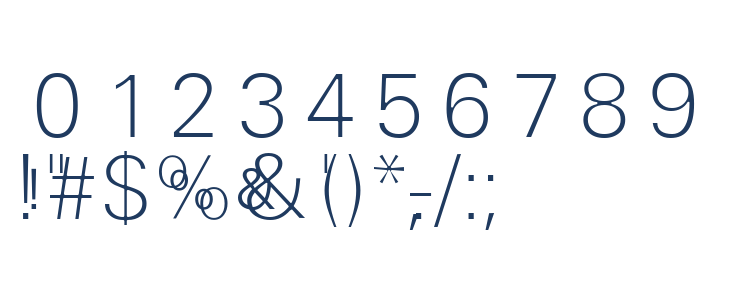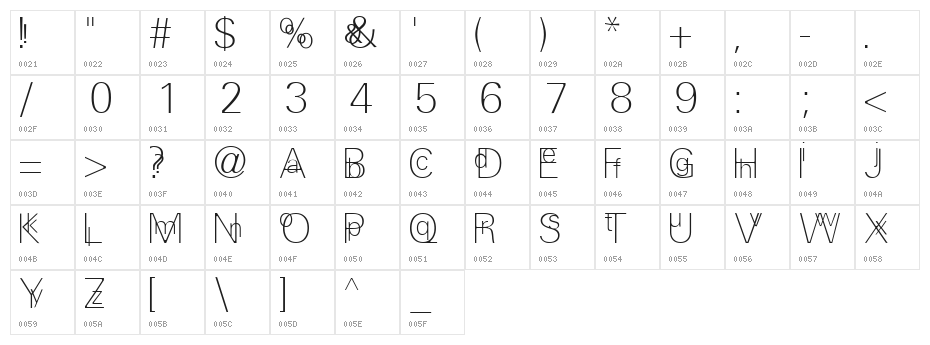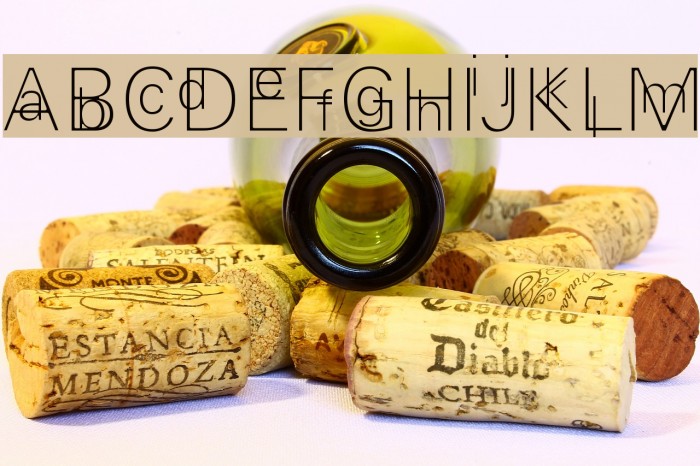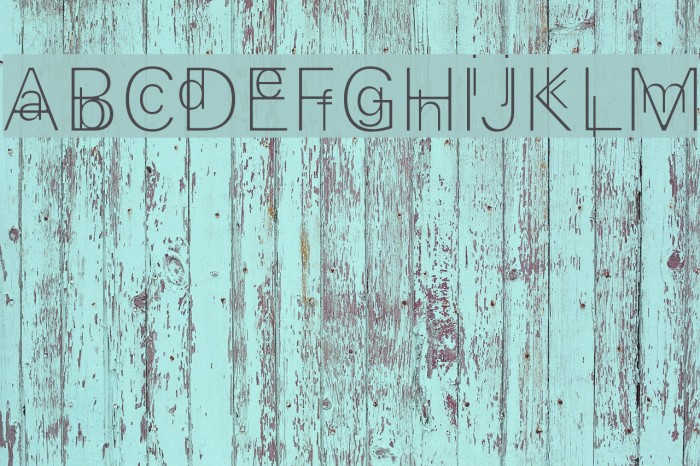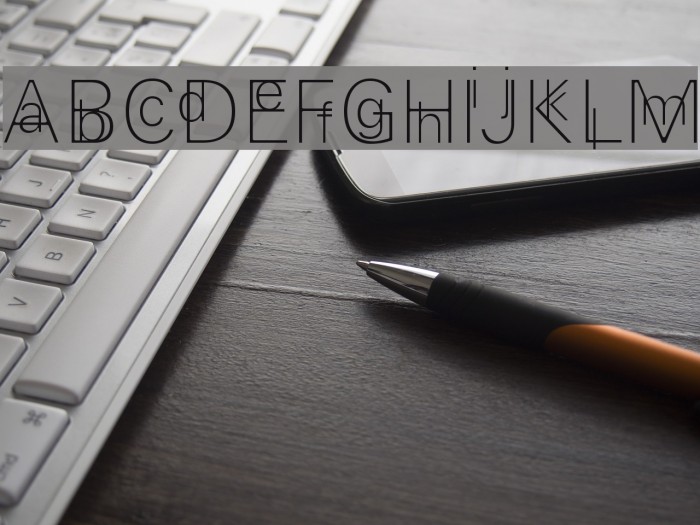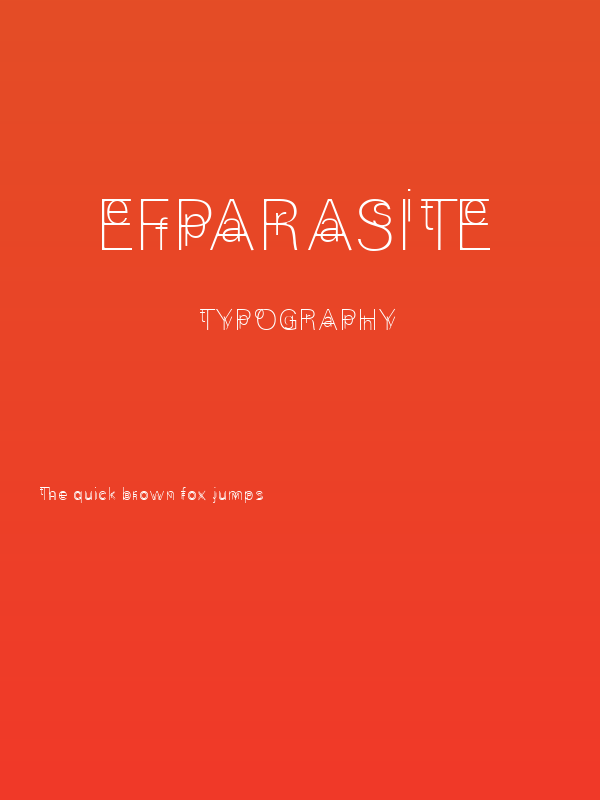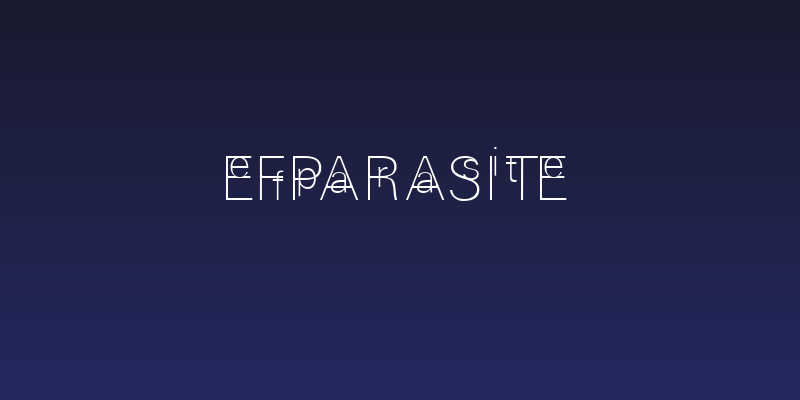
EfParasite Font
EfParasite Description
This font features a unique blend of modern and experimental design elements. The characters are primarily sans-serif with a distinct overlay effect, where each letter appears to have a shadow or duplicate slightly offset, creating a layered look. This gives the font a dynamic and intriguing appearance, making it stand out in any design. The uppercase and lowercase letters maintain a consistent style, with clean lines and geometric shapes. The numerals and special characters follow the same design principles, ensuring a cohesive look across all text elements. The font's innovative style makes it suitable for creative projects that require a bold and artistic touch.